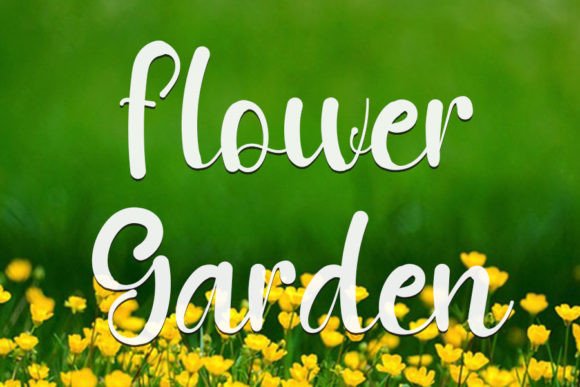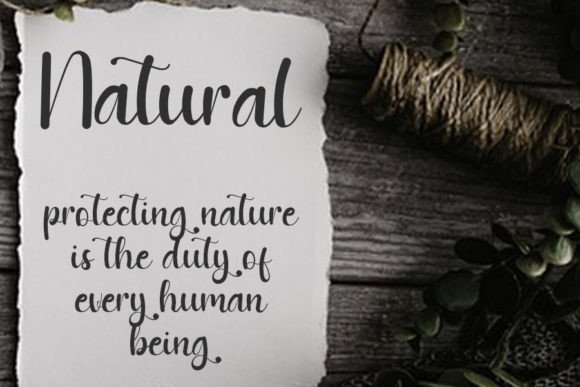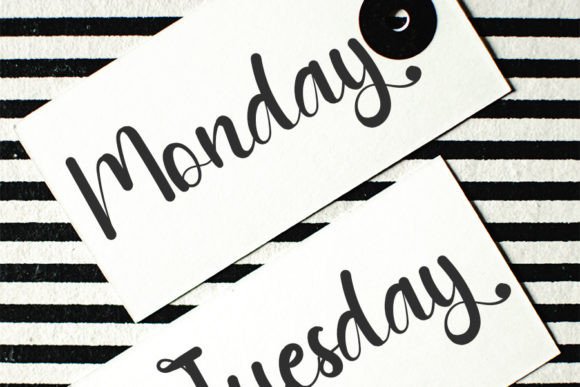
Shining Nature is a cool handwritten font with a modern vibe and spotless form, inspired by classic calligraphy.
Not too thin and not too thick, balanced and varied, this font was designed to enhance the beauty of your projects .
Shining Nature Font offers exceptional quality and versatility, making it a valuable addition to your design toolkit. Whether you’re creating for personal projects or commercial use, Shining Nature Font delivers professional results.